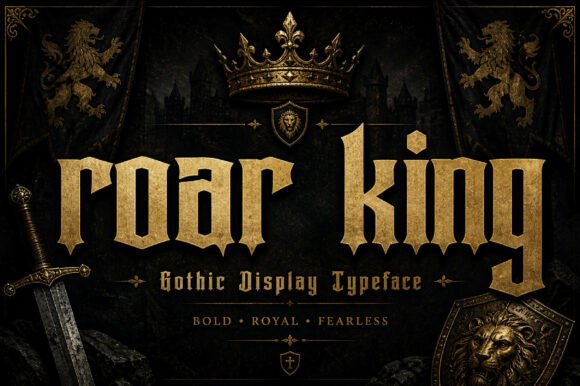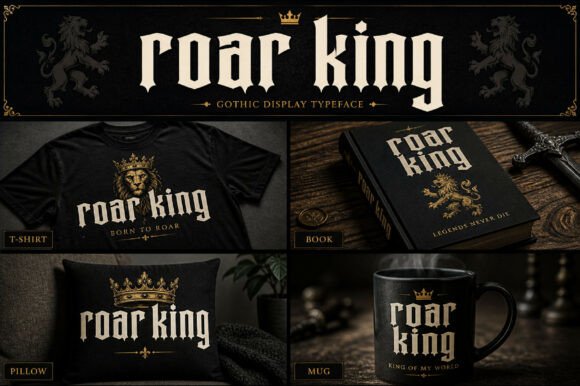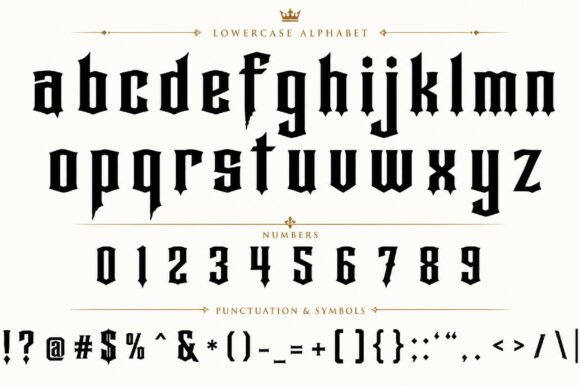
Introduction to Roar King Font
Roar King is a powerful gothic display font designed to create bold, fearless, and dramatic typography.
With its strong letterforms, sharp cuts, and blackletter-inspired structure, this font brings a fierce medieval character to any design Its heavy and commanding style makes Roar King perfect for projects that need strength, attitude, and visual impact.
Key Features of Roar King Font